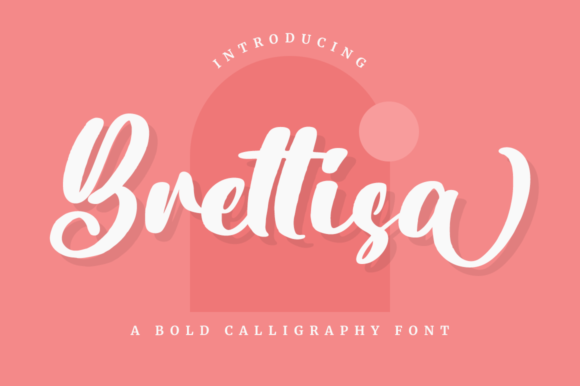
Introducing Brettisa, the exquisite script font that transforms your words into captivating works of art. Imagine an Instagram story that whispers elegance and steals the show, leaving your audience entranced. Brettisa's meticulously crafted alternates and ligatures orchestrate a harmonious dance of letters, luring your followers into a world of timeless beauty.
Brettisa is the muse for stylish souls, a font that embodies grace and refinement. Its ethereal strokes glide across the page like a gentle caress, capturing the essence of elegance with every curve and swash. Let Brettisa be your secret weapon, elevating your Instagram stories to unprecedented heights of sophistication.
Whether you're a storyteller, a fashionista, or a creative spirit, Brettisa is your gateway to a world of visual enchantment. Its versatility knows no bounds, seamlessly adapting to any project where beauty and style converge. Let Brettisa ignite your imagination and paint your digital canvas with unforgettable masterpieces.
With Brettisa at your fingertips, every Instagram story becomes a captivating masterpiece, a testament to your impeccable taste and discerning eye for aesthetics. Each letter and ligature is a testament to the boundless creativity of RockboyStudio, renowned for their exceptional artistry.
Join the ranks of the discerning who have embraced Brettisa as their font of choice, transforming their social media presence into an exquisite tapestry of elegance and allure. Let Brettisa be your muse, guiding you to the forefront of visual storytelling and leaving an everlasting impression on your audience.